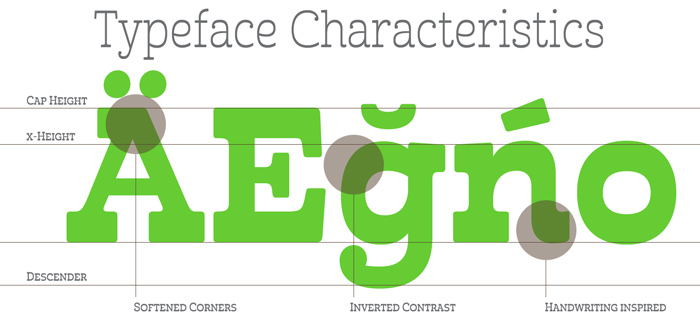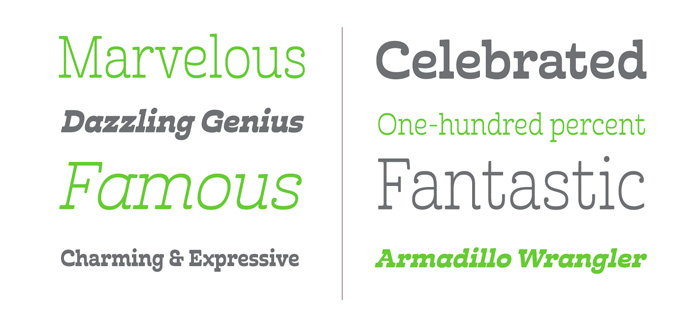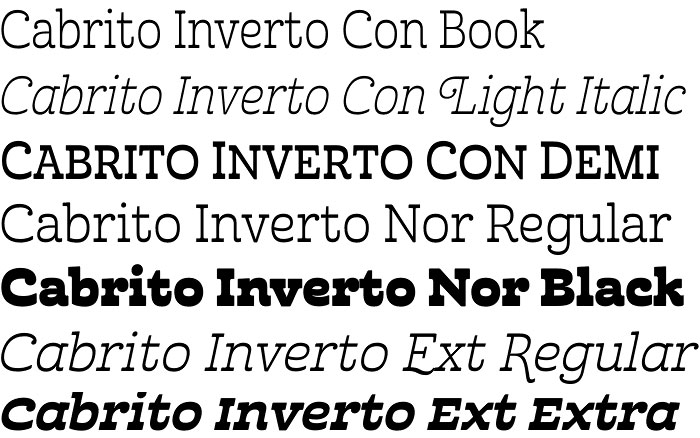
Cabrito Inverto font
Cabrito Inverto font by Jeremy Dooley (insigne type foundry) is an overwhelming slab Serif family consisting of the impressive 48 fonts. Cabrito Inverto typeface family is the new member of the Cabrito font family. Cabrito font itself is a recently developed slab serif made for the kid’s book The Clothes Letters Wear. Cabrito proved to be extremely popular and its author created an inverted style for this new addition to the font world – a variant that would pair well with the original or even stand well on its own.
Cabrito Inverto font features the reversed stress of the strokes from a font’s “normal” traits. Inverted stress fonts are most often associated with cowboys and the Old West. The inverted stress gives it a happy-go-lucky appearance, not to be taken too seriously. It’s a pleasantly rounded, not-so-strictly geometric typeface with handwriting-inspired forms.
Cabrito Inverto comes with plenty of alternates accessible in any OpenType-enabled program. It contains a workforce of alternates, swashes, and alternate titling caps to embellish the font. Also bundled are swash alternates, aged design and style figures, and compact caps. OpenType-enabled purposes such as Adobe suite or Quark will allow ligatures and alternates. The font family also includes the glyphs for 72 different languages.
Cabrito Inverto font family does pair well with Cabrito. There is even an extra font weight, Black, for when you want to punch it up a bit. Jeremy Dooley designed Inverto to be a welcoming, day-to-day font family. Use it to express friendliness on just about anything, from candy to food to children’s toys. Cabrito Inverto’s one-of-a-kind visual appearance brings a bundle of fun to the party. Buy Cabrito Inverto to give a boost to your designs every day of the week.
Jeremy Dooley is a world traveller with a interest in type. He received a masters in graphic design at Savannah College of Art and Design in 2005. “Type is very much like music,” says Jeremy Dooley. “It is linear, and the notes or phrases have to fit the theme or song.” Jeremy, owner of the one-man foundry, insigne, is a self-taught type designer and a true self-made success story. Check also his marvellous Cabrito font, Aviano Gothic font, Torcao font, Ainslie font, Enocenta font, Quatie font, Grenale #2 font, Barcis font.